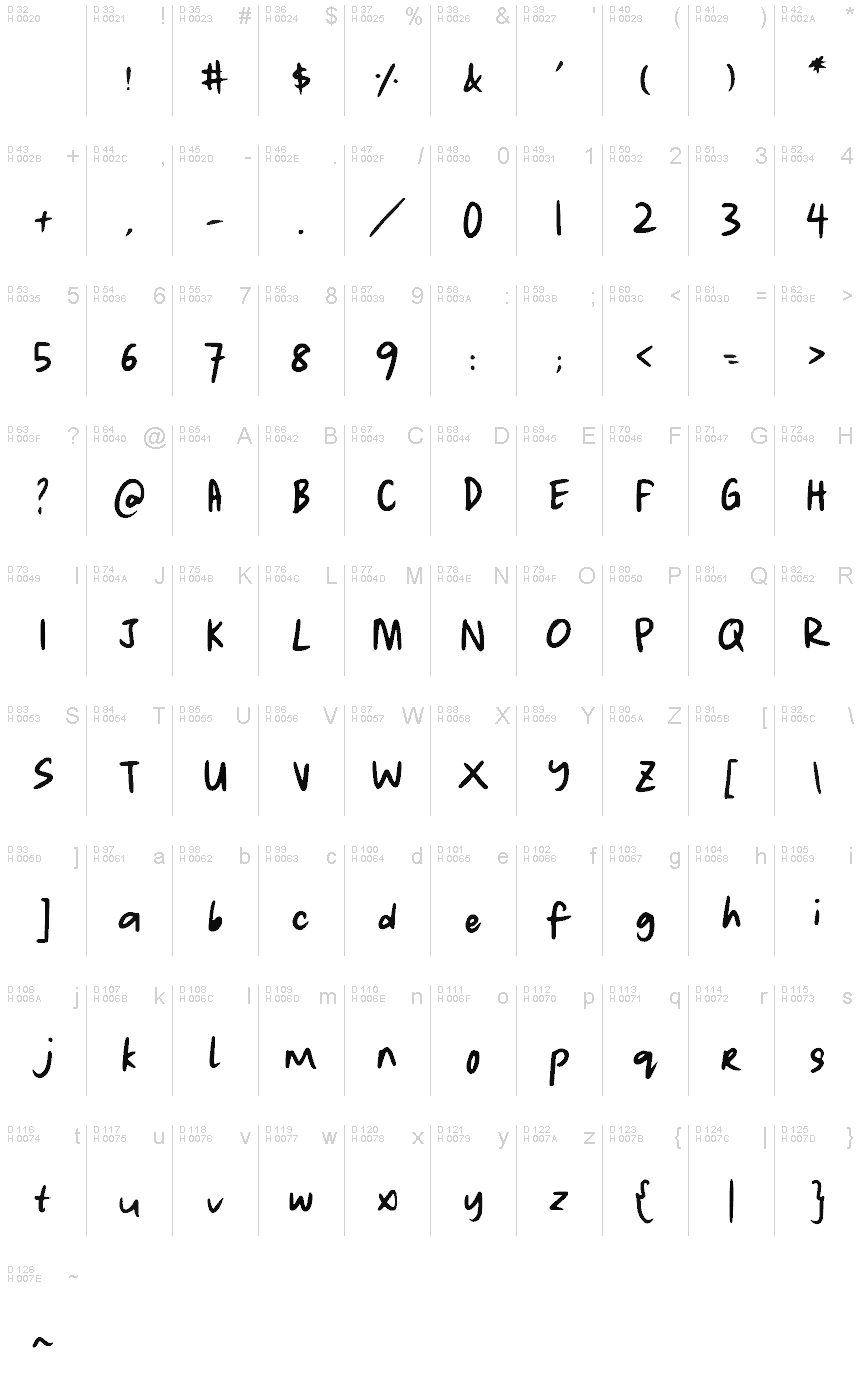
lauwrites
Lauwrites is a captivating handwritten font crafted by designer Lau. The script-inspired strokes and organic flow convey a sense of warmth and personality, inviting the reader to engage with the content. The font's slight imperfections and unique character lend an authentic, hand-lettered aesthetic, evoking a genuine, artisanal feel. Lauwrites' versatile nature allows it to seamlessly transition from headlines to body copy, creating a cohesive and visually compelling typographic experience.
The font's adaptability makes it a versatile choice for a wide range of design projects, from editorial layouts and branding materials to packaging and social media content. Lauwrites' expressive qualities lend themselves particularly well to creative endeavors, such as product packaging, wedding stationery, or promotional campaigns, where a touch of personalization and authenticity is desired.